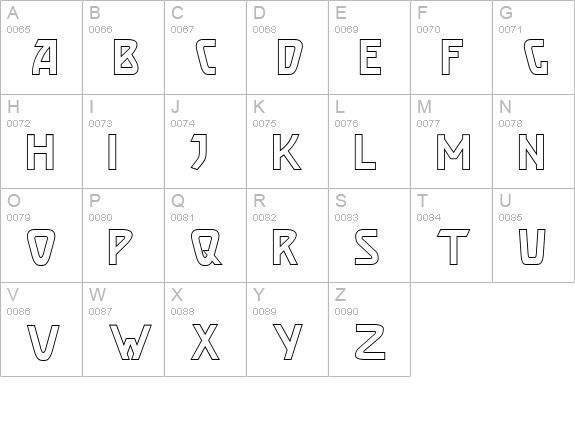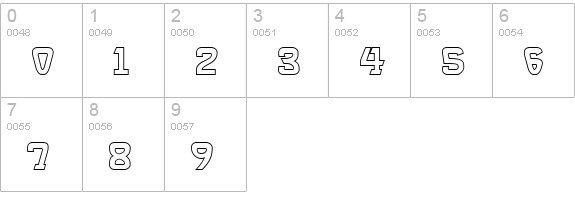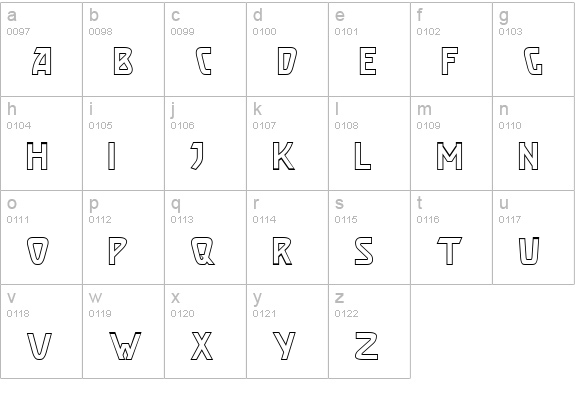
Brassett_Outline Font Details
Brassett_Outline font is a modern and stylish typeface that exudes sophistication and elegance. With its clean lines and sleek appearance, this font is perfect for adding a touch of class to any design project. The outline style gives it a unique and eye-catching look that will make your text stand out. Whether you are designing a logo, poster, or website, Brassett_Outline font is sure to make a statement. The best part is that Brassett_Outline font is completely free to download at FontsMarket.com. This means you can easily access this beautiful font and use it in your projects without any cost. Don't miss out on this amazing opportunity to enhance your designs with Brassett_Outline font today!